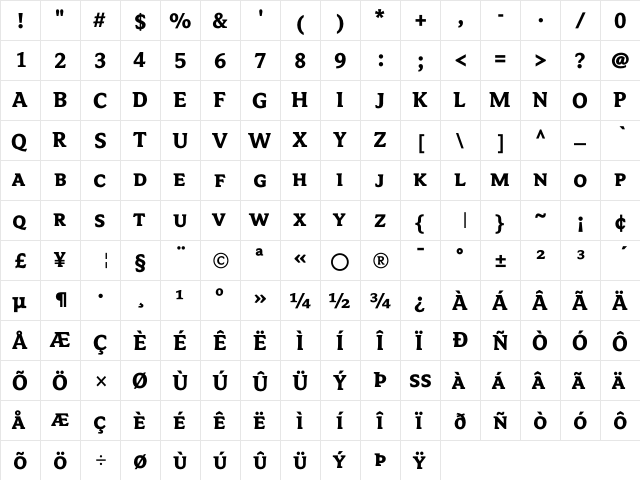
Avance Bold SC
Avance takes a measured approach to typography — its balanced proportions and neutral character make it a reliable workhorse for both digital and print work. Its bold stroke weight gives it real presence on the page.
Pro Tip: Use Avance in both headline and body roles to test its range before committing to a single application.